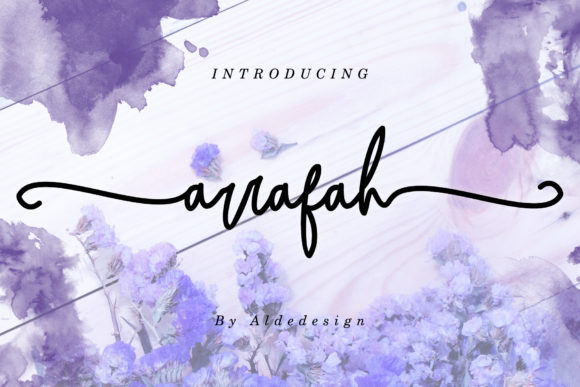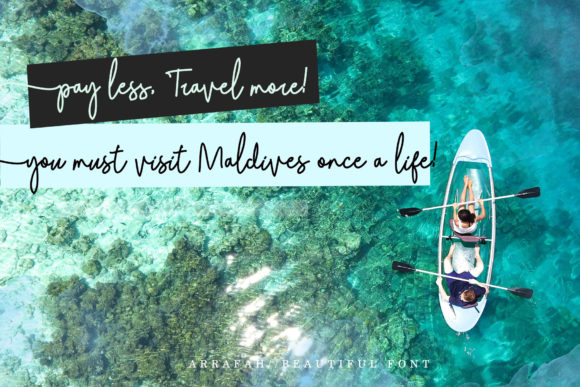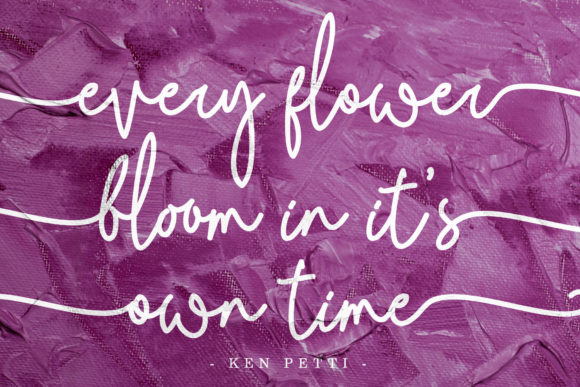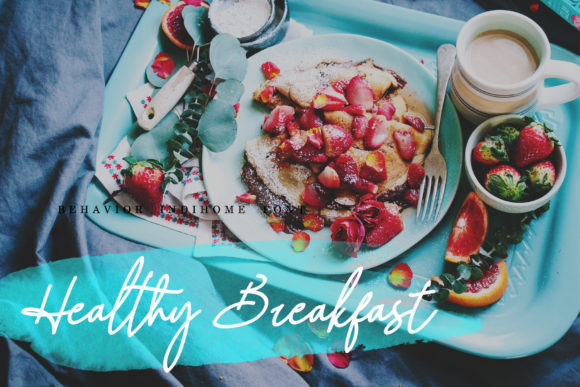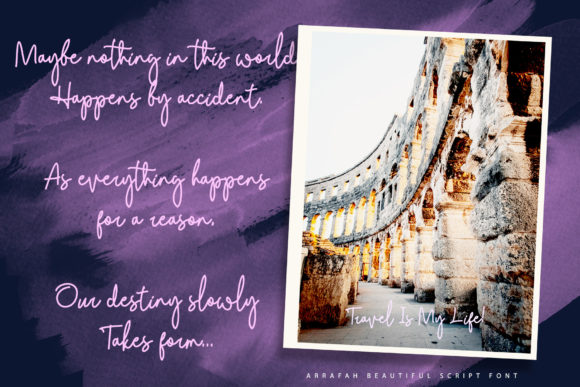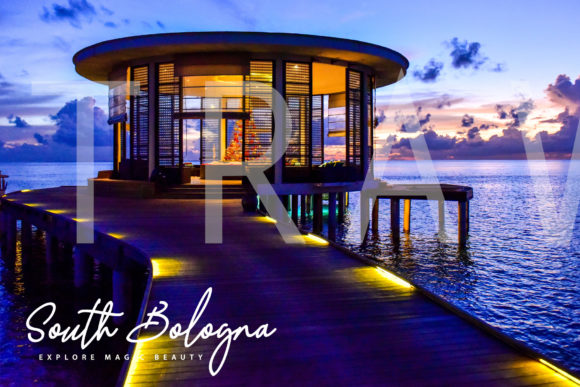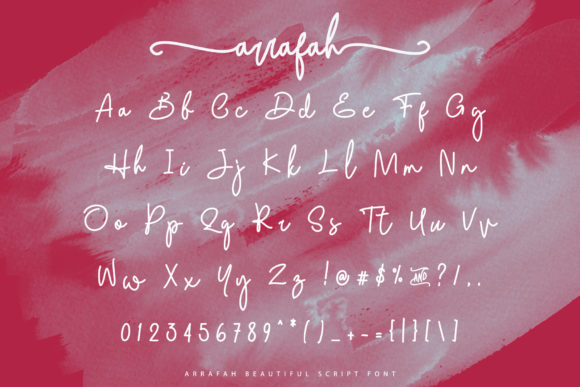
Arrafah Font
About Arrafah Font
Arrafah Script is a gorgeous script font with a luxurious and classy taste. It has a natural, yet elegant feel and is absolutely easy to use.